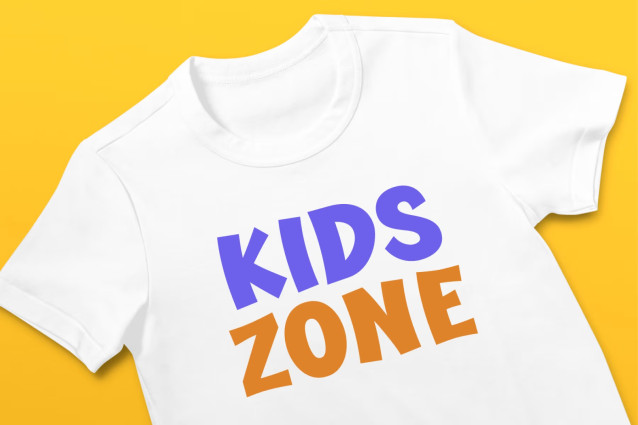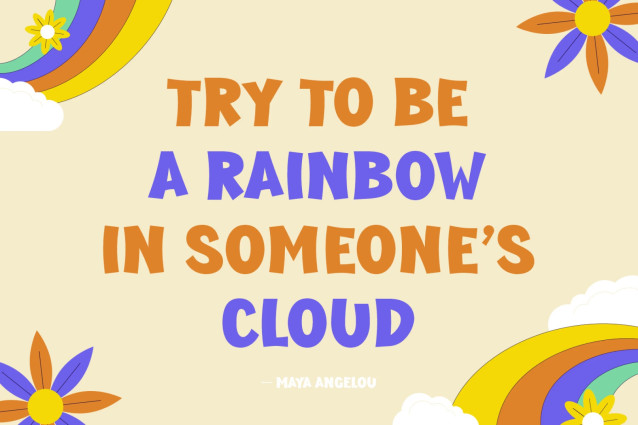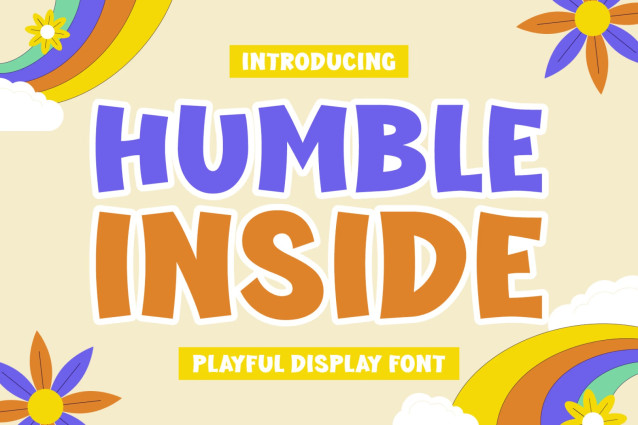
Humble Inside Font
Humble Inside Font a versatile display font that emanates love and simplicity. This crafty font seamlessly merges a sense of innocence with a modern flair, making it perfect for children’s projects, from school prints to playful cartoon creations. Dripping with authenticity, the hand-drawn charisma of the font elevates headlines, greeting cards, book covers, and social media content, creating an appealing visual experience.